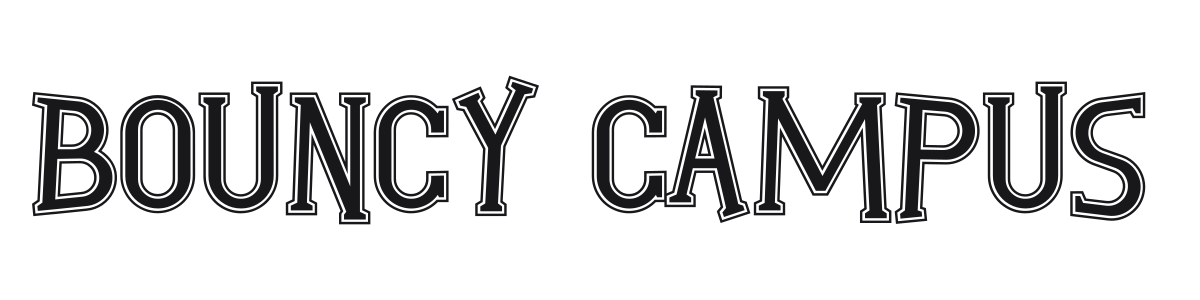
Bouncy Campus
Bouncy Campus is a bold condensed serif with a collegiate varsity character, built on heavy bracketed serifs and a crisp inline outline treatment that gives each letter a layered, almost embossed quality. The design draws from 19th-century American wood-type and classic athletic lettering traditions. It works at large sizes where the inline detail can breathe.